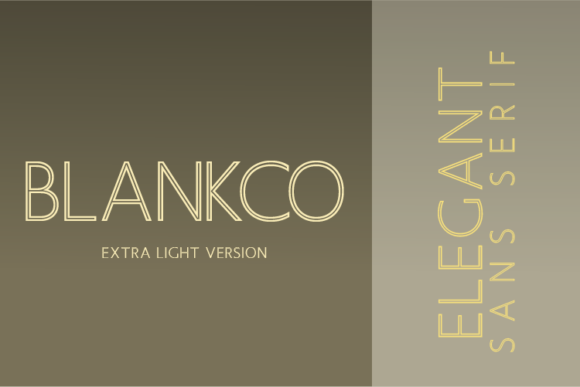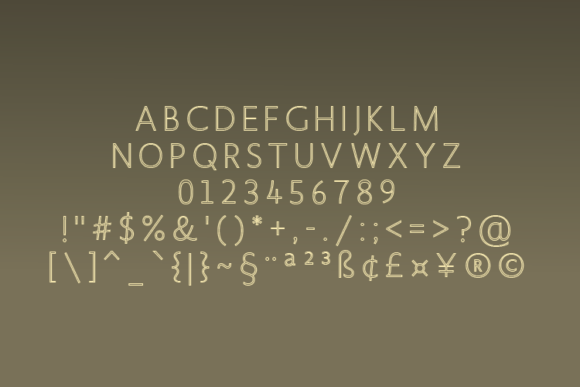
The Perfect Blend of Modernity and Versatility
Imagine strolling through a bustling city, surrounded by vibrant street art and bold typography. The rhythm of the city is set by the fonts that adorn its walls, billboards, and buildings. As a designer, you strive to create a similar impact with your work. That’s where the Blankco Outline Extra Light Font comes in – a fresh, geometric, sans-serif font designed to elevate your designs and leave a lasting impression.
This incredibly versatile font is perfect for designers looking to add a touch of modernity to their projects. With its big x-height value, geometrical letterforms, and sharp edges, Blankco Outline Extra Light Font is sure to make your designs stand out. Whether you’re working on a magazine, poster, website, or brand identity, this font is an excellent choice.
Blankco Outline Extra Light Font Key Features
- Font Family: Blankco Outline Extra Light, a unique and modern sans-serif font designed for various applications.
- Characteristics: The Blankco Outline Extra Light font features clean lines, geometric shapes, and a minimalist aesthetic, making it ideal for modern designs, corporate identities, and branding materials.
Designer Review: Blankco Outline Extra Light Font
Overall, I think Blankco Outline Extra Light is a solid choice for designers looking for a clean and modern sans-serif font. ✨ Here are some things that work well:
- Highly legible, even at smaller font sizes
- Sharp, modern design that’s perfect for digital interfaces
- Great for body text and headings alike
However, I do have a few reservations:
- ⚠️ Limited character set – I wish they included more language support
- ⚠️ Not ideal for complex or long-form text – can be a bit too light and airy
Despite these limitations, I think Blankco Outline Extra Light is a great addition to any designer’s toolkit. It’s perfect for digital projects where a clean, modern aesthetic is a must. If you’re looking for a font that’s easy to read and visually appealing, I’d definitely recommend giving it a try.
Use Blankco Outline Extra Light Font for:
– Titles and headings
– Body text for a modern and clean look
– Designing business cards, resumes, or other professional documents
– Creating a minimalist and elegant design aesthetic
Alternatives to Blankco Outline Extra Light Font
Avenir Next Ultra Light
Avenir Next Ultra Light is a modern sans-serif font designed for digital use. It is ideal for use in interfaces, apps, and websites where a clean and minimalist aesthetic is desired. Avenir Next Ultra Light is similar to Blankco Outline Extra Light Font in its light and airy feel, but it has a more geometric and structured design. It is also more suitable for body text due to its high legibility.
Open Sans Light
Open Sans Light is a popular sans-serif font that is highly legible and versatile. It is suitable for use in a wide range of applications, from body text to headings. Open Sans Light is similar to Blankco Outline Extra Light Font in its light and friendly feel, but it has a more rounded and approachable design. It is also more suitable for use in print materials due to its high readability.
Montserrat Ultra Light
Montserrat Ultra Light is a geometric sans-serif font designed for use in digital applications. It is ideal for use in interfaces, apps, and websites where a clean and modern aesthetic is desired. Montserrat Ultra Light is similar to Blankco Outline Extra Light Font in its light and airy feel, but it has a more geometric and structured design. It is also more suitable for use in headings due to its high visual impact.